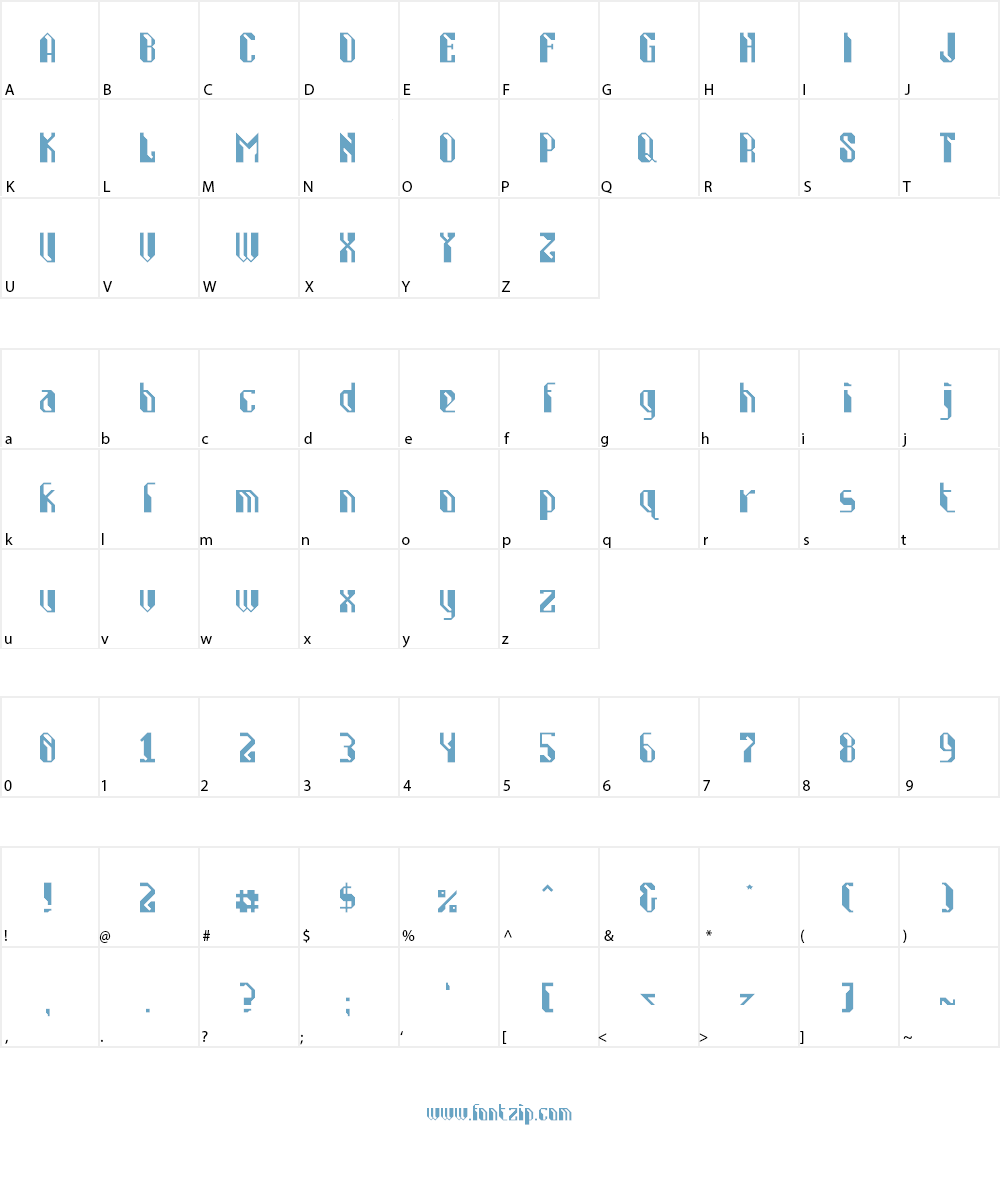
Yes, I got the inspiration from the logo of the band Scorpions. But I have developed it, so they can not charge me with accusations of plagiarism. ha ha ha